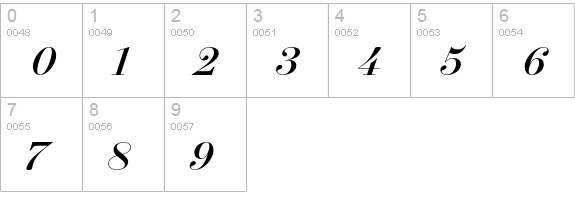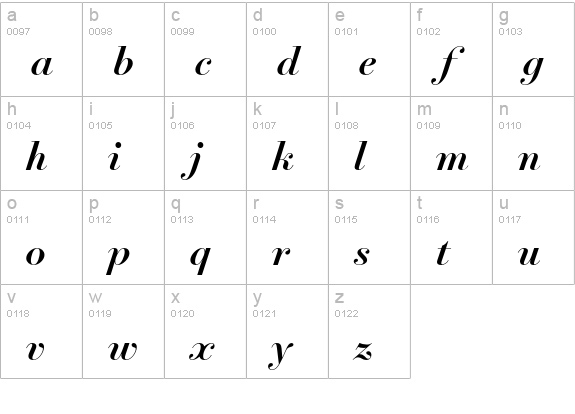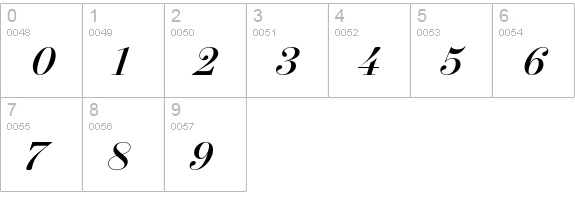
NewParis Headline Medium Italic Font Details
NewParis Headline Medium Italic is a balanced, medium-weight, italic variant in the NewParis typeface family \xE2\x80\x94 well suited to sub-headlines, navigation, and balanced editorial work.
Introducing NewParis Headline Medium Italic font, a sleek and modern typeface that exudes elegance and sophistication. This font is perfect for creating eye-catching headlines, titles, and branding materials that demand attention. The italic style adds a touch of flair and personality to your designs, making them stand out from the crowd. Best of all, NewParis Headline Medium Italic font is available for free download at FontsMarket.com. Now you can elevate your projects with this premium font without breaking the bank. Don't miss out on the opportunity to add a touch of class to your designs with this stunning typeface. Download NewParis Headline Medium Italic font today and take your typography to the next level!